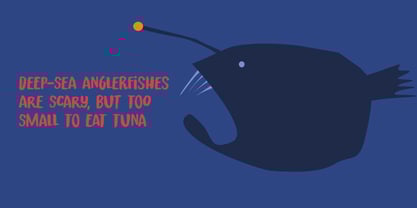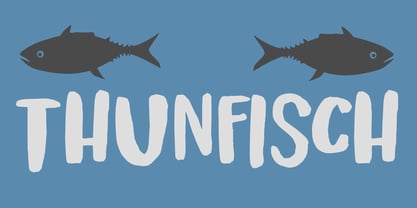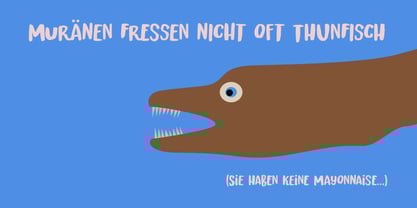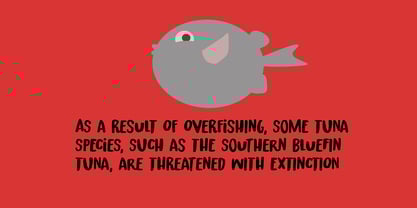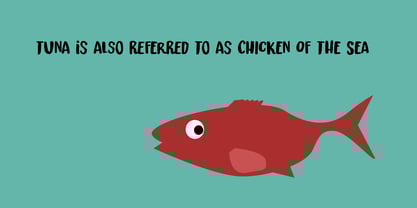
Thunfisch
por Hanoded
La familia tipográfica Thunfisch fue diseñada por David Kerkhoff y publicada por Hanoded. Thunfisch contiene 2 estilos y opciones de paquete familiar. Más información sobre esta familia
Thunfisch, in German, means Tuna. At home, we don’t eat too much tuna, but I like serving a tuna & pasta salad. In Japan, where I often find myself, tuna is a staple protein source. It is so popular in Japan that species like the Pacific Bluefin tuna, of which 80% its consumed in Japan, are on the brink of extinction.
So, now you wonder why a Dutch typographer gives a German name to a font and talks about the dwindling population of Bluefin tuna, caused by the Japanese…
Well, ‘Thunfisch’ looks good. In Dutch, tuna is ‘Tonijn’ (a little boring) and in Japanese, Tuna is ‘Maguro’ - which is also slightly boring, so I settled for Thunfisch.
Thunfisch is a font I made with Chinese ink (tuna in Chinese is 鲔鱼) and a small brush. It comes with extensive language support and a lovely set of auto-rotating alternates!